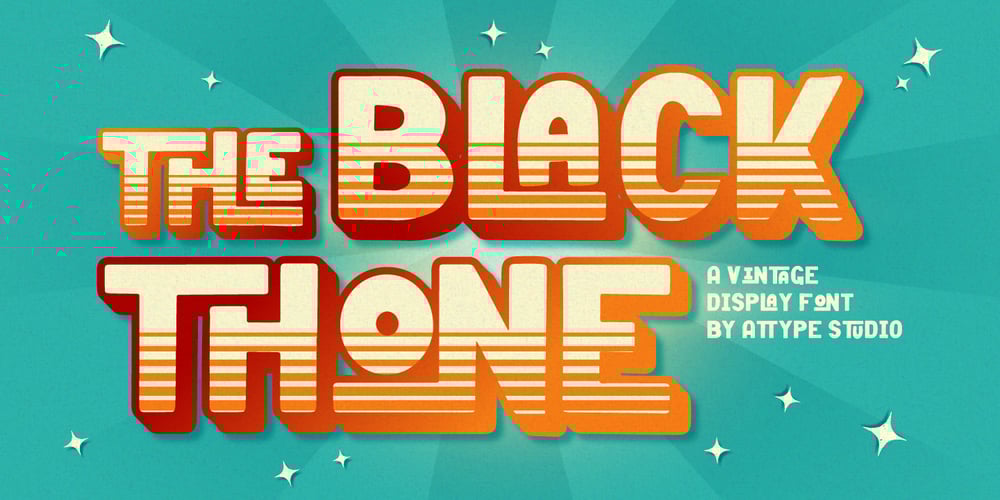
Black Thone Font Family was designed by Fadli Ramadhan Iskandar and published by Attype Studio. Black Thone contains 3 styles and family package options. Introducing Black Thone – Inspired by typeface on 70s era, Black Thone has the vintage font & retro font style.with 3 font style, It’s super easy to use 3D effect wint Black Thone family font.Three style Font: Regular, Display & ExtrudedBlack Thone is perfect for children product, branding, logo, invitation, stationery, product packaging, merchandise, monogram,blog design, game titles, cute style design, Book/Cover Title and more.Features :- Black Thone.otf- Black Thone Extruded.otf- Black Thone Display.otf- Multilingual Support —Hope you enjoy with our font!Attype Studio